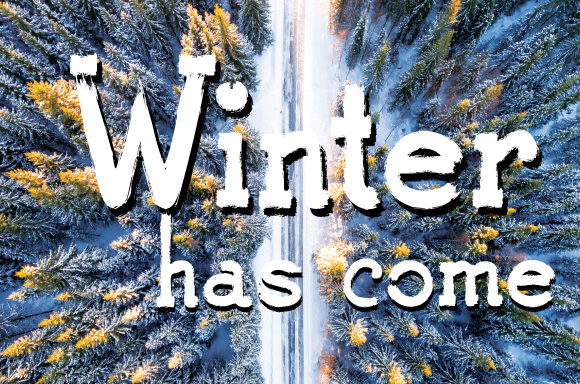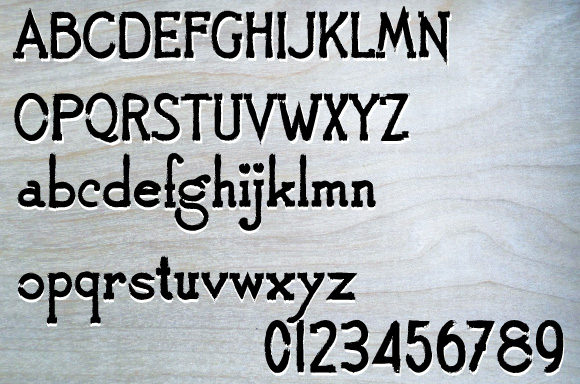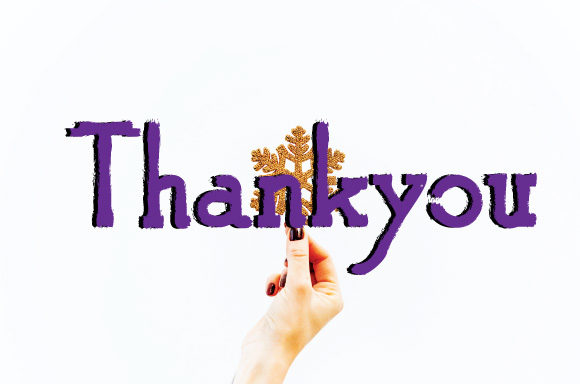
Introduction to Quegroek Font
You know that moment when you’re brainstorming ideas for a new creative project, and the perfect font suddenly pops into your mind? For designers, finding that elusive perfect font can make all the difference between a great design and a truly exceptional one. And that’s exactly what we’re excited to introduce you to – the Quegroek Font, a casual and trendy display font that’s sure to elevate your design game.
Whether you’re working on a letterhead, title, or stationery project, the Quegroek Font’s original look and feel will appeal to a wide range of creative ideas. And the best part? This high-quality design resource is available for free download, making it an accessible and valuable addition to any designer’s toolkit. With its transparent background and versatile style, the Quegroek Font is the perfect choice for designers looking to add a touch of personality to their next creative project.
Key Features of Quegroek Font
- Unique and Creative Design: The Quegroek Font offers a distinctive and creative design that can be used for various creative projects.
- Transparent Background: The font features a transparent background, allowing for seamless integration with various backgrounds and designs.
- High-Quality Design: The Quegroek Font is designed with high-quality in mind, ensuring crisp and clear text output.
- Perfect for Creative Projects: The Quegroek Font is an ideal choice for designers and artists working on creative projects that require a unique and eye-catching font.
Honest Review: Quegroek Font
As a designer, I’m always on the lookout for high-quality design resources that can elevate my creative projects. The Quegroek Font caught my eye with its unique style and versatility.
What works well with the Quegroek Font is its ability to be customized to fit any design project. The font comes in a variety of weights and styles, making it easy to find the perfect fit for your design. The transparent background option also makes it easy to layer and combine with other design elements. ✨
- High-quality design that is perfect for creative projects
- Customizable with a range of weights and styles
- Transparent background option for easy layering
However, I did notice a few limitations with the Quegroek Font. ⚠️ The font may not be suitable for all types of projects, particularly those that require a more traditional or formal look. Additionally, the font may require some adjustments to get it to look its best on certain devices or platforms.
For the best results, use the Quegroek Font in high-quality designs. Experiment with different font sizes and styles to create a visually appealing design. Additionally, pair the font with other design resources for a cohesive look.
The Quegroek Font is ideal for creative projects, such as infographics, posters, and brochures. It’s also great for designing logos and branding materials. With its high-quality design and transparent background, the Quegroek Font is a valuable design resource for any project.